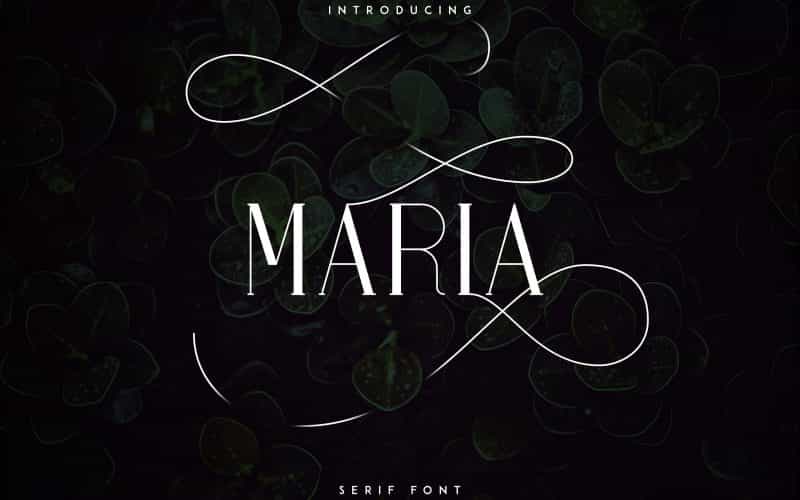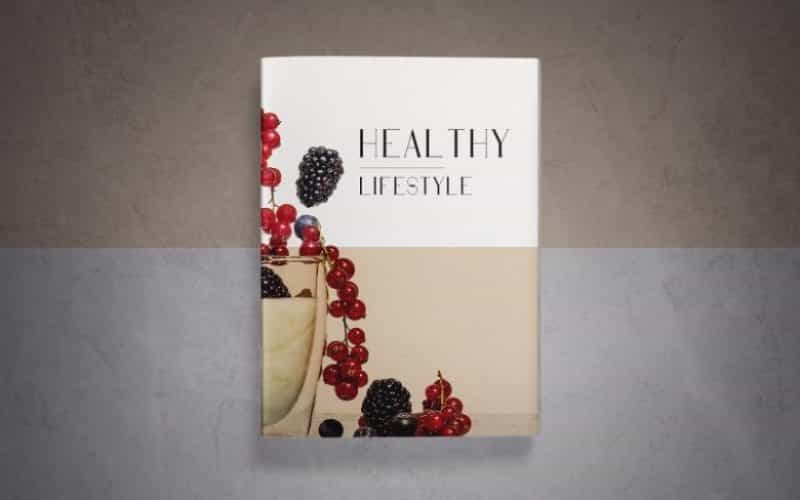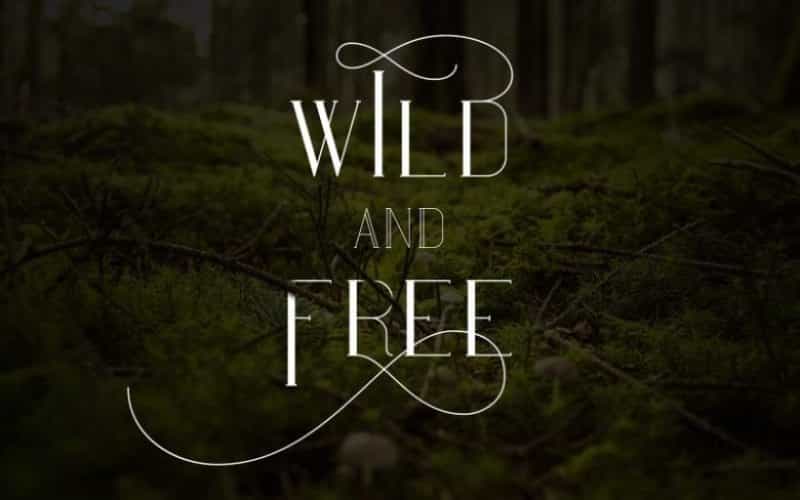
Maria is a classy high end serif font with multilingual support and 10 alternative glyphs for each letter to impress your design. It is a font that can be used in various ways and works well both for big and small sizes.